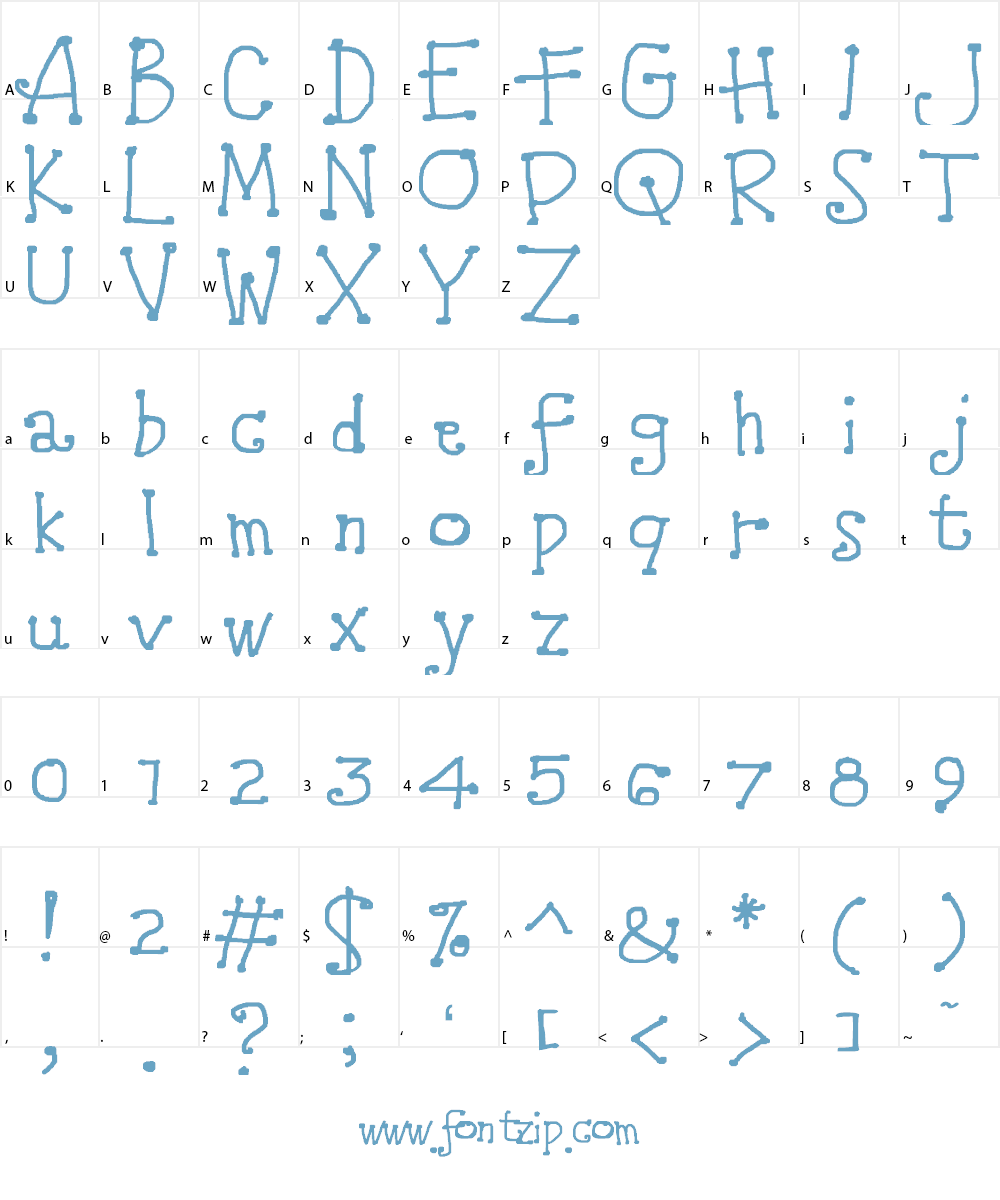
I love children's handwriting and this is what I tried to recreate in this fun, light font for any type of project. The title signifies what I'd like everyone using this font to be in the midst of - happiness, joy, blessings, calm, wonder, delight- the essence of childhood.